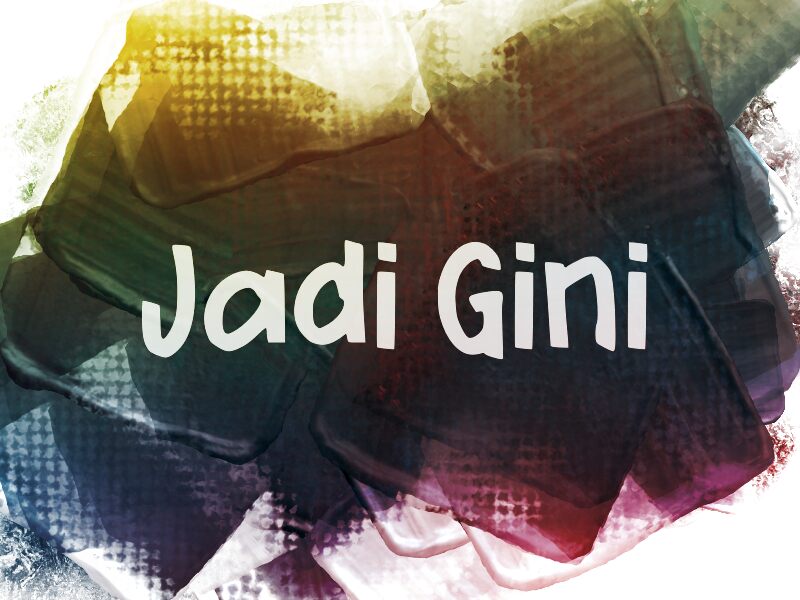
j Jadi Gini font was designed by wep as a free font to download and use in your personal projects. This comic-style typeface has a youthful, friendly, and approachable look to it. It has a casual mood within its characters that suits it within entertainment fields. The designer incorporated a modern touch that makes the font viable in any project with the right atmosphere.
Relaxed and playful, this font will present itself well in greetings cards, children's books, brand labels, apparel designs, social media posts, and digital marketing projects among other applications. Use it on headlines or short paragraphs in the regular size, or go for oversized text to push its effect to the maximum.
Jadi Gini is a stylish and modern free font that elevates your design projects with its unique aesthetic. Perfect for various applications, this font can be seamlessly integrated into everything from promotional materials to personal branding efforts.
Experience the versatility of Jadi Gini in your next project and explore its potential for creating eye-catching designs. Whether you need it for headlines, logos, or other typography needs, this free font delivers both elegance and readability.